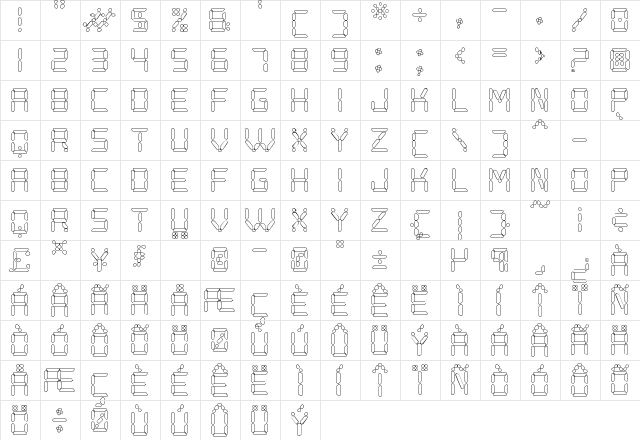
Digital Play Hollow St Regular
Design Context for Digital Play Hollow St Typeface
Digital Play Hollow St has a distinctly futuristic character, with geometric precision and clean angles that feel at home in technology, gaming, and sci-fi contexts.
Pro Tip: Use Digital Play Hollow St in combination with a neutral sans for body text. Let it define the brand voice in headlines while keeping reading comfortable elsewhere.